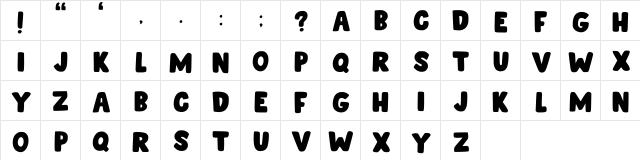
Meonk Plans Regular
Design Context for Meonk Plans Typeface
Meonk Plans offers clean, dependable letterforms without strong stylistic allegiance, making it a practical choice for designers who need flexibility.